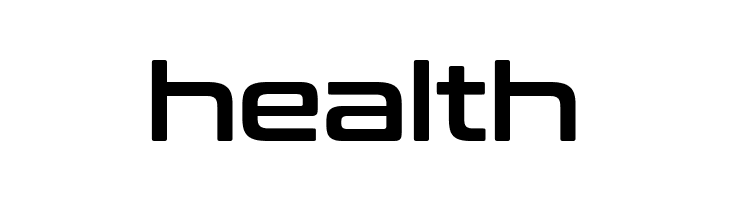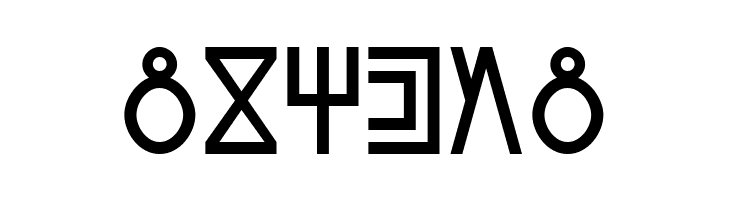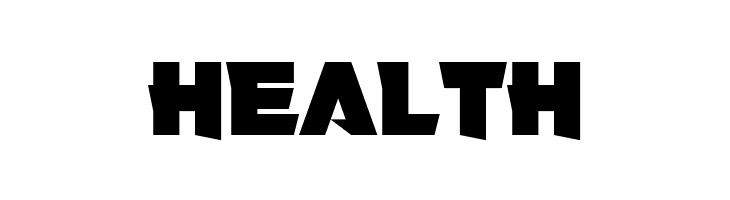
• EphemerianThin
A modern, geometric font with thin strokes and a sleek, futuristic style.
• Absinthe
A whimsical and artistic font with elongated, curvy lines and decorative elements.
• ConthraxSb-Regular
A modern, geometric sans-serif font with a sleek and technical appearance.
• WAKANDA PANTHER
( WAKANDA PANTHER )
A bold, geometric font inspired by African tribal art with a modern twist.
• .VnAvantH
• .VnAvantH Bold
• Diantha
An elegant script font with flowing, cursive letters and a sophisticated style.
• Anthemis Personal Use Only
A bold, flowing script font with elegant, cursive letterforms.
• Monthelo Regular
A bold, flowing script font with elegant, interconnected characters.
• Pill Anthropic
Bold, angular font with a futuristic, geometric style.